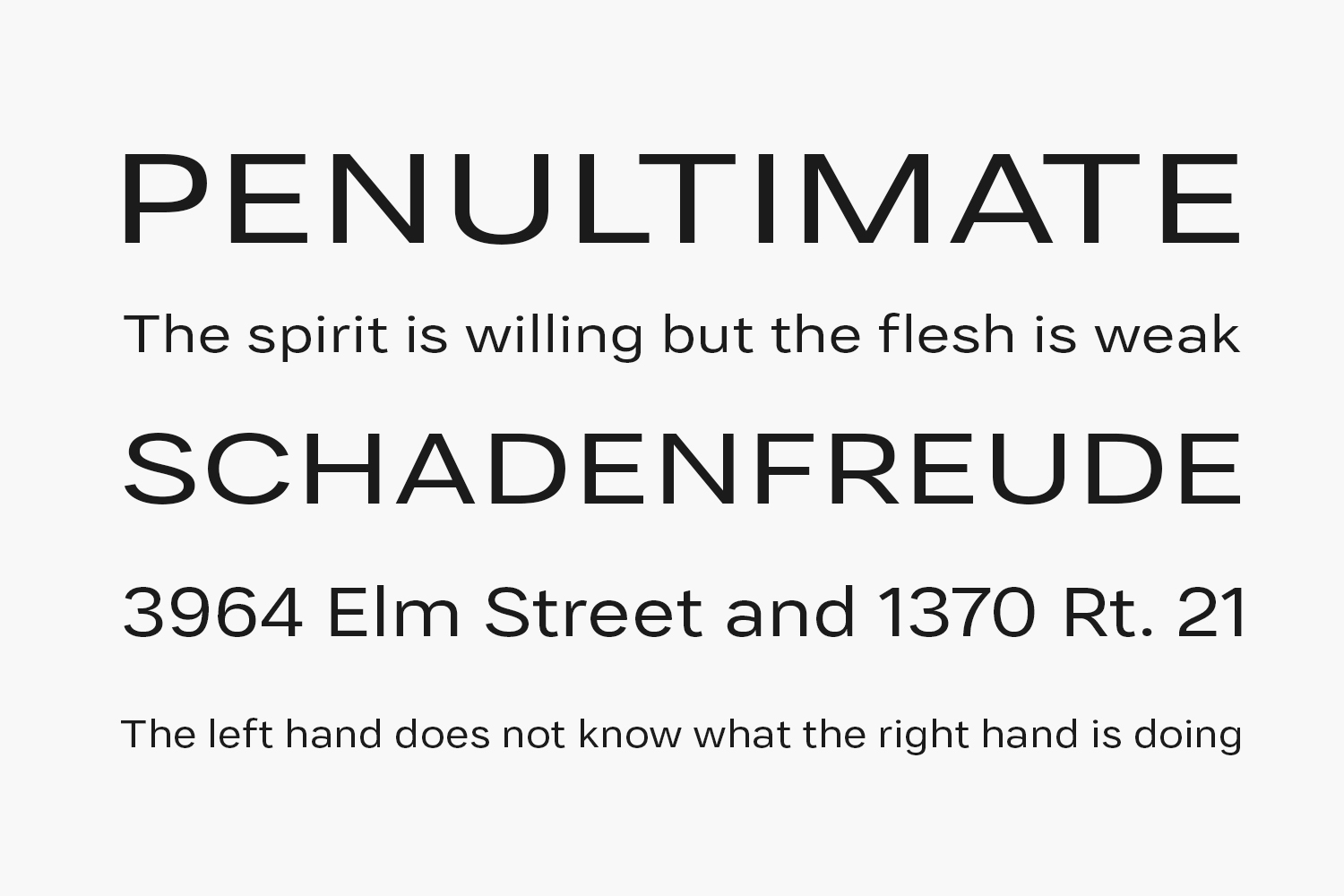
Malnor Free Font Family is sleek and modern, exuding a sense of simplicity and sophistication. Its minimalistic sans-serif design gives it a clean and polished look, making it perfect for professional or high-end design projects. The font’s sharp edges and straight lines convey a sense of precision and attention to detail, inspiring feelings of confidence and trust.